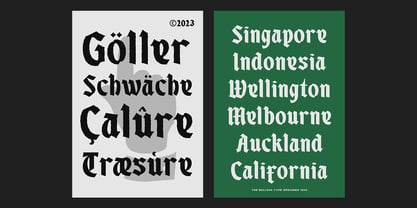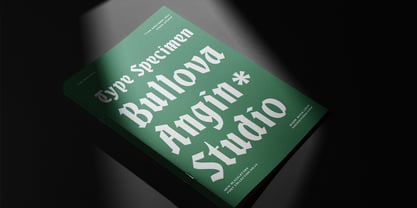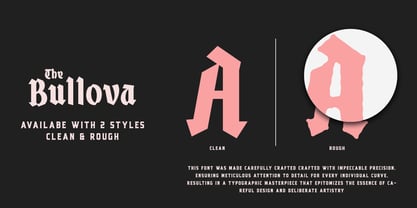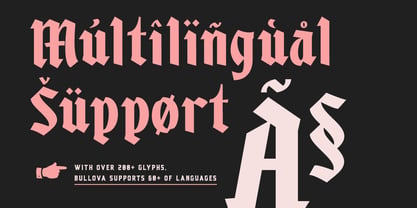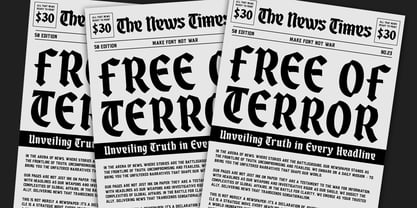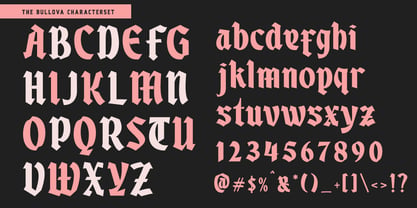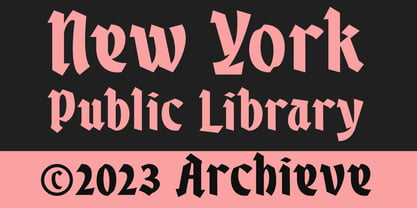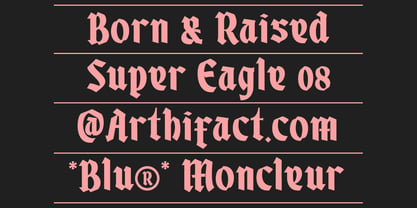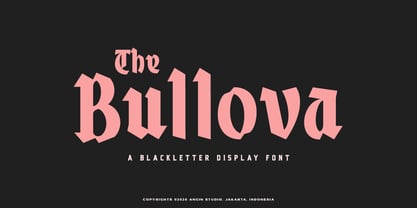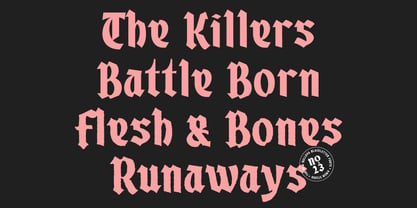
Bullova
par Angin Studio
La famille de polices Bullova a été conçue par Ahmad Aswin, David Novrian et publiée par Angin Studio. Bullova contient 2 styles et options de package familial.
Bullova fonts inspired by Fraktur & Rotunda Blackletter manuscript made with a modern impression but still looks strong and catchy. Bullova is also supported with multilingual characters that can be used in several languages. The Bullova is very suitable for use in making poster, logos, tattoo, labels, packaging, album covers. Bullova comes with 2 styles. I hope you enjoy this font as much as we created.
Concepteurs: Ahmad Aswin, David Novrian
Éditeur: Angin Studio
Fonderie: Angin Studio
Maître d'ouvrage: Angin Studio